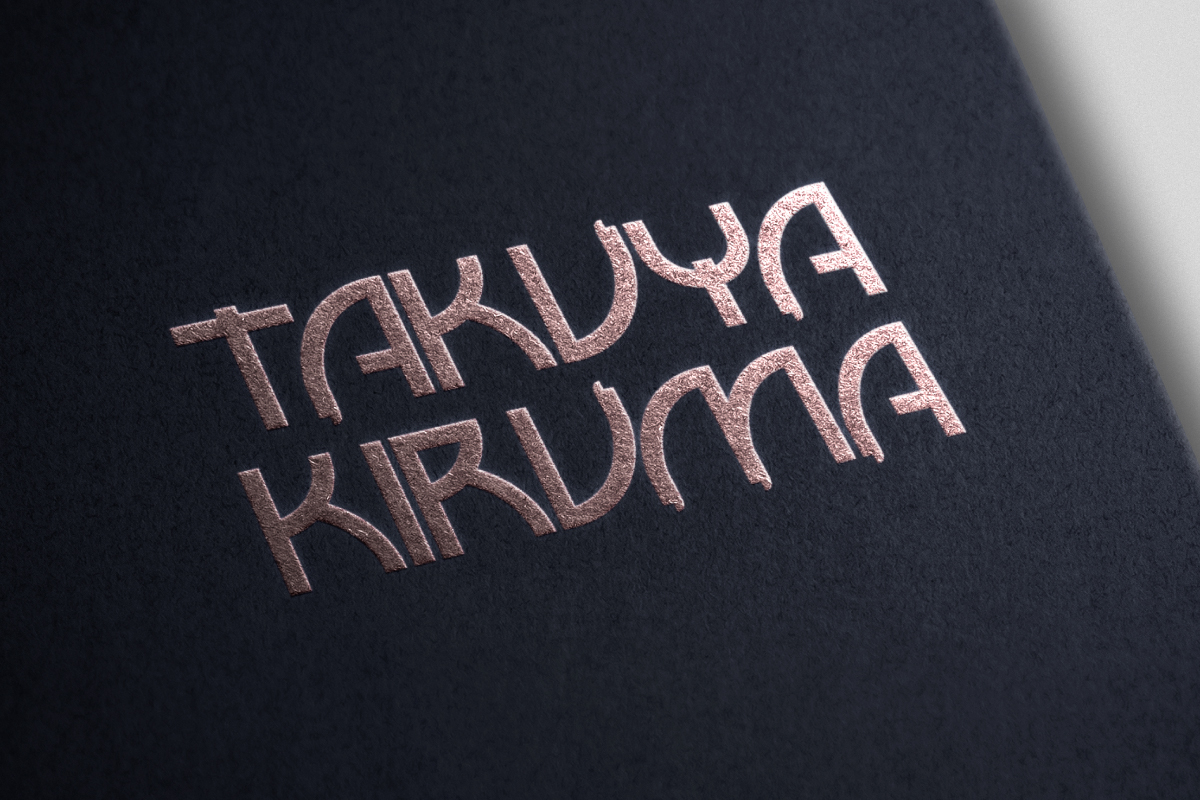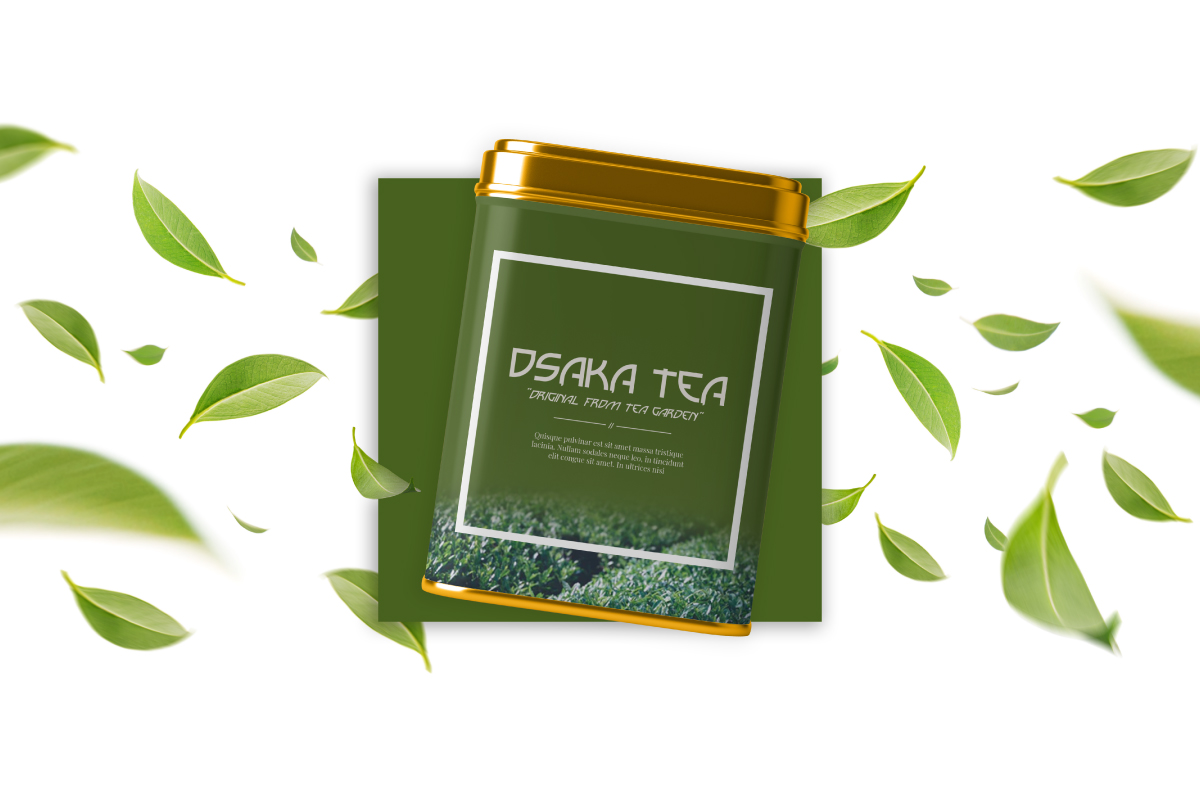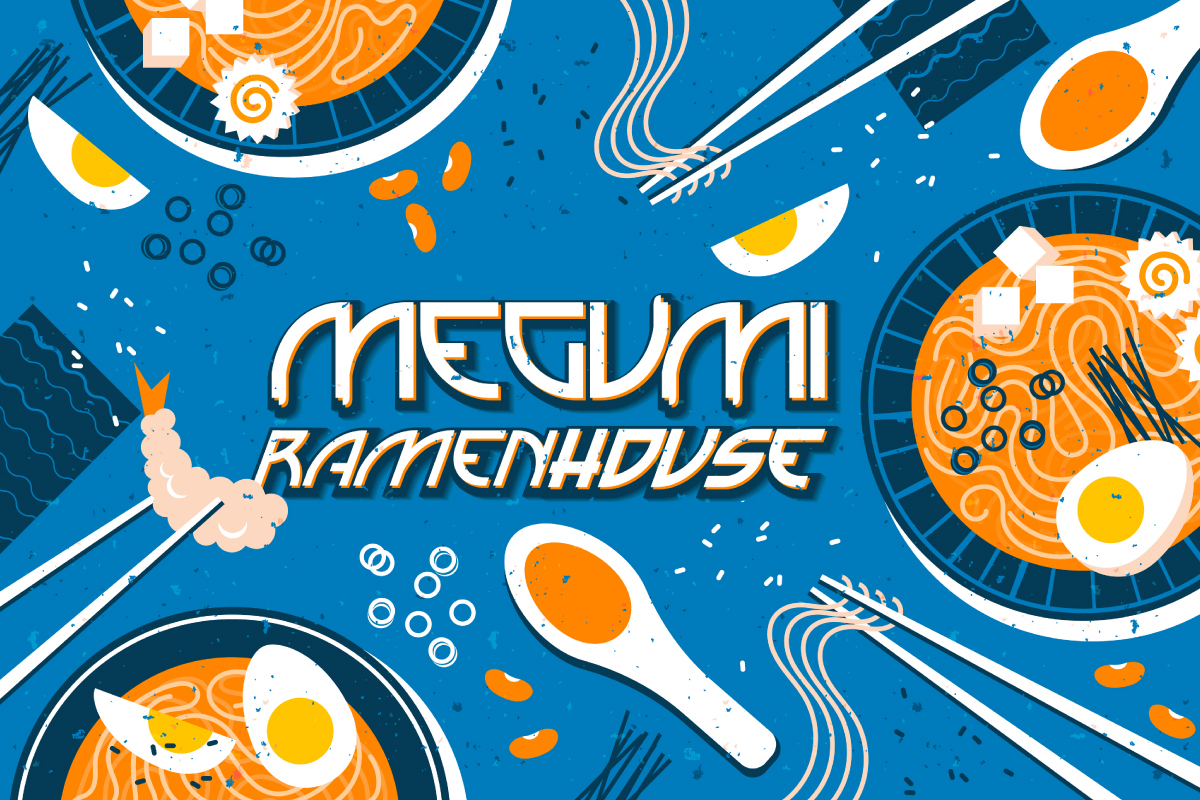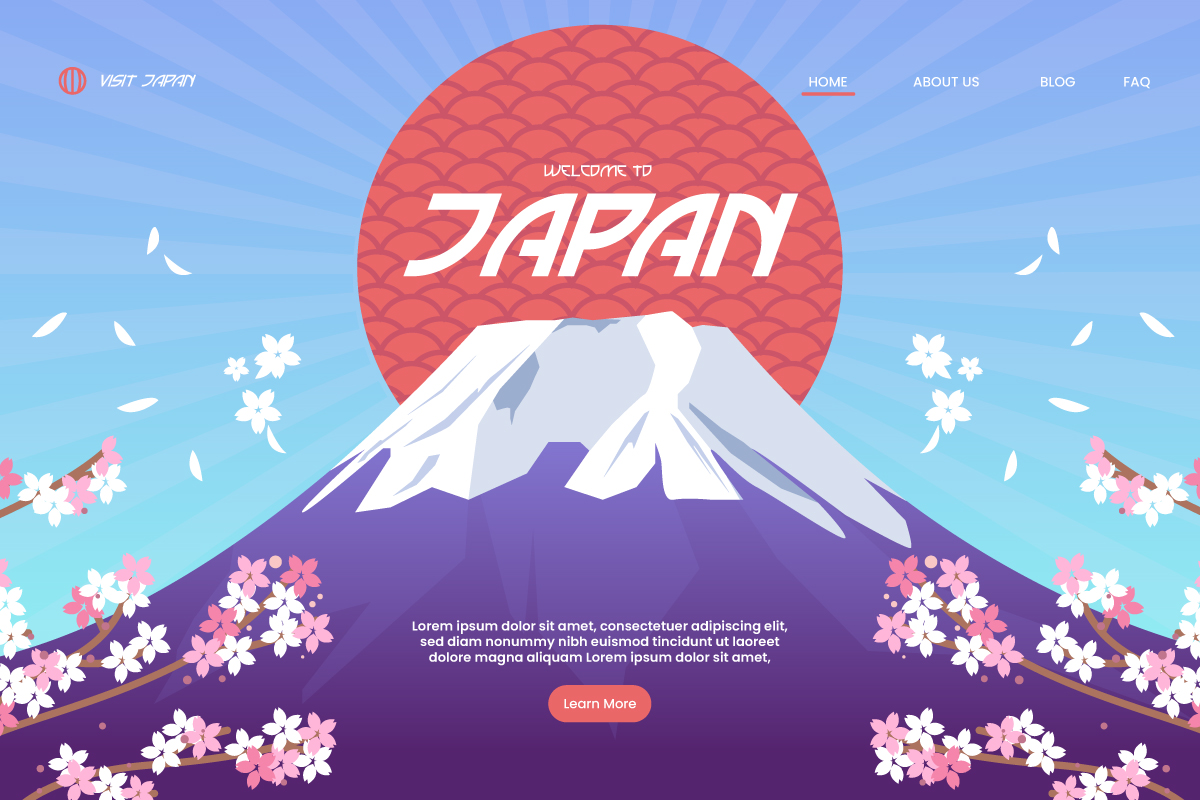
Kawaguchi Font
Kawaguchi Display Font
It’s a display sans serif font family with Japanese style characters inspired from hiragana, katakana and kanji letters. The style of this font are cultural, modern, stylish, strong, and sporty. The font is Great for logo, brandings, headlines, signage etc. Kawaguchi Font come with stylishly strong unique characters that will make your designs standout. The font will be awesome for many industries including : sports, techno, festival, games, movies etc